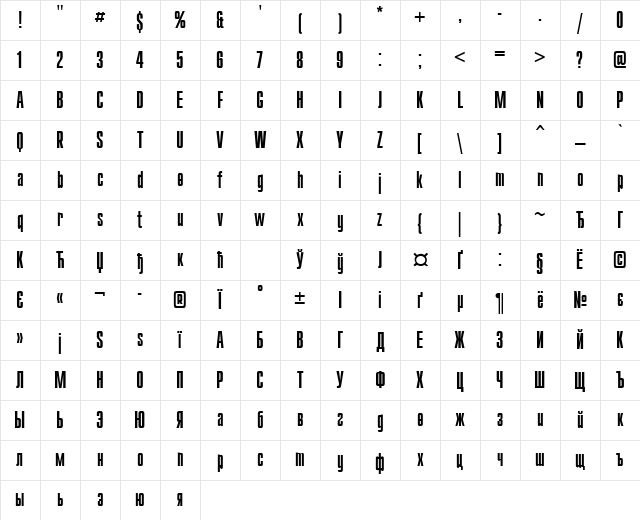
CompactCTT Regular
CompactCTT Family
Complete CompactCTT Regular glyph index. Displaying only characters natively supported by CompactCTT Regular font.
Design Context for CompactCTT
CompactCTT is a composed and adaptable typeface that performs quietly and consistently across a wide range of design contexts. Its narrow stance lets it pack a punch even in space-constrained designs.